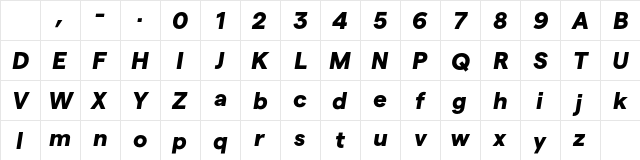
Complete Matter SQ TRIAL Heavy Italic glyph index. Displaying only characters natively supported by Matter SQ TRIAL Heavy Italic font.
Matter SQ TRIAL is a composed and adaptable typeface that performs quietly and consistently across a wide range of design contexts. The slanted form adds forward momentum and visual energy.
Pro Tip: Use Matter SQ TRIAL for emphasis, pull quotes, and subheadings where its slanted energy can add rhythm to the layout.